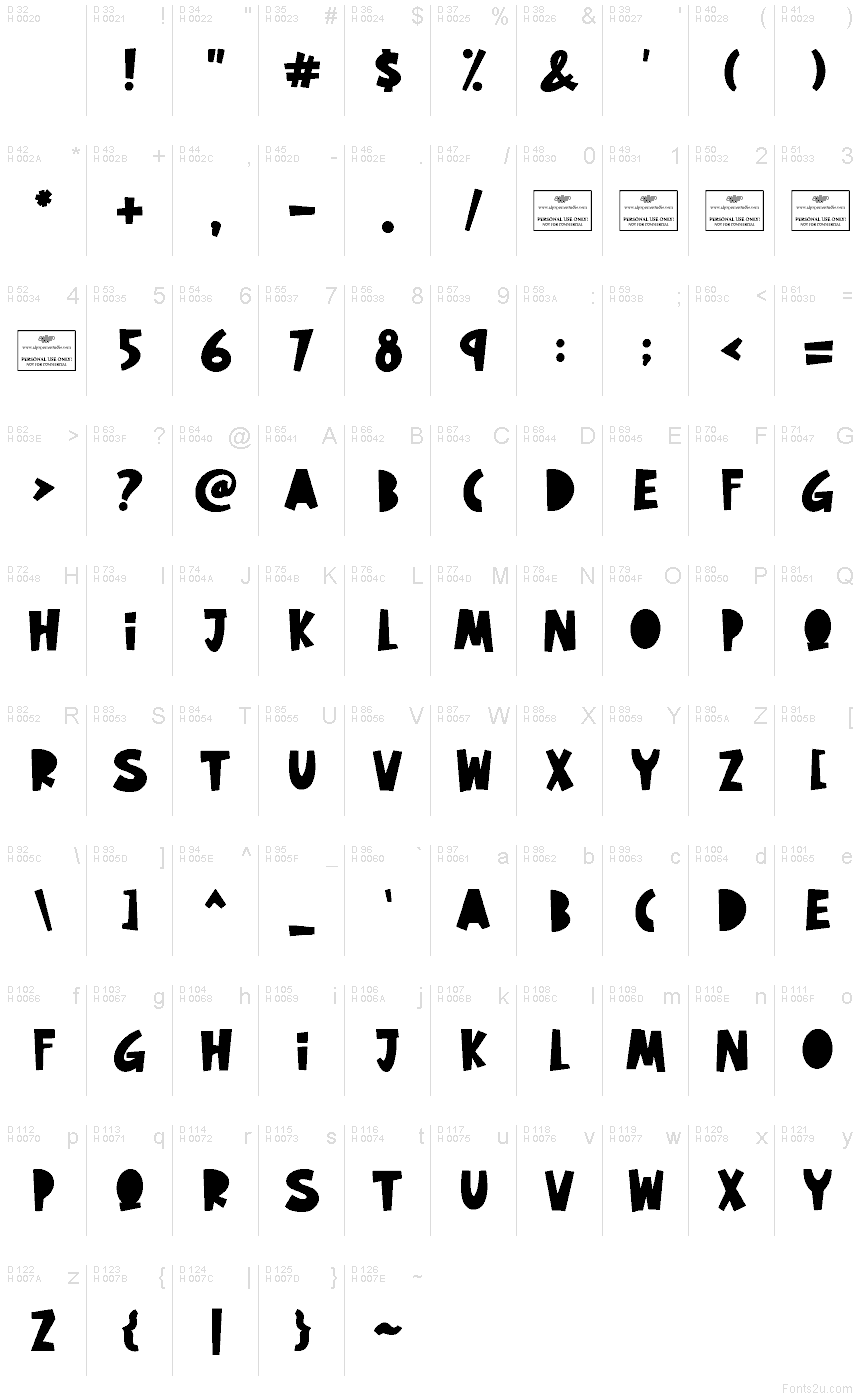
Symbiosis
Symbiosis font by Alpaprana Studio is a quirky decorative display font with exaggerated shapes and bold weights. Its retro vibe is undeniable; designs from an earlier era are clearly its main source of typographic inspiration. The overall style reflects eccentricity and uniqueness, more than enough to captivate audiences at first glance just like any professional designer would.